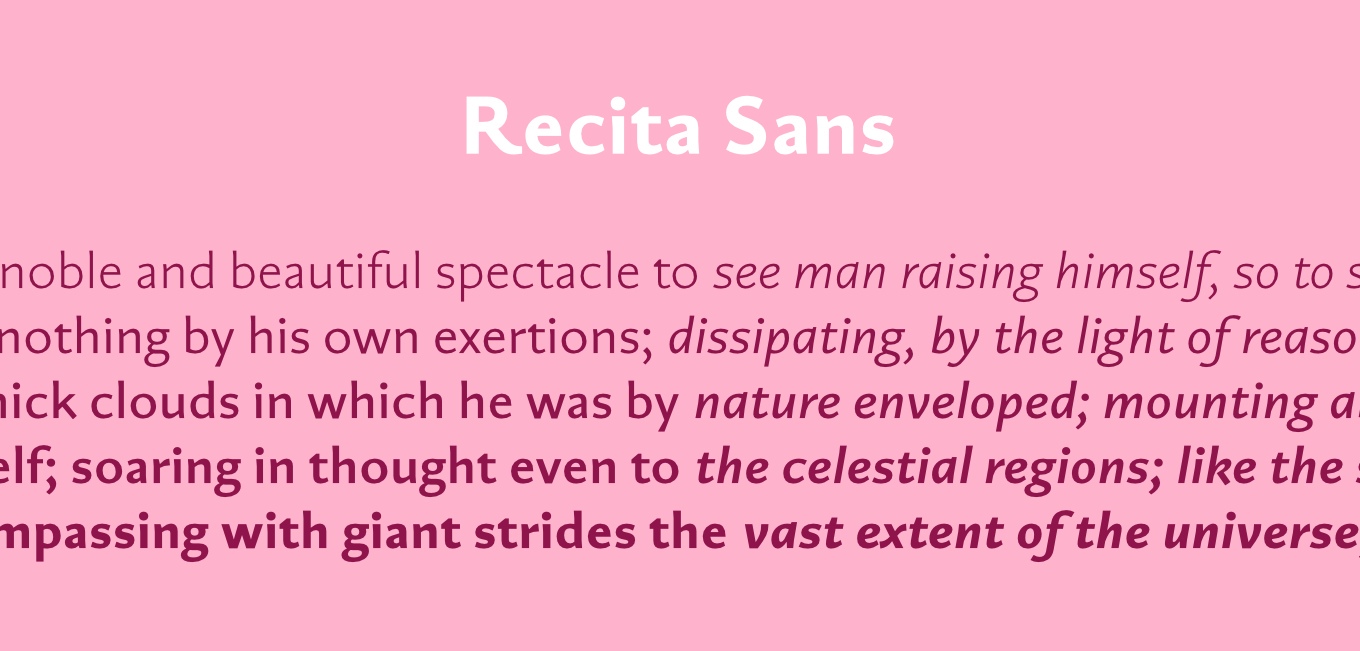
Recita Sans Font
Recita Sans Font is perfect for modern corporate presentations, clean web interfaces, professional documentation, minimalist branding systems, tech startup identity, and contemporary editorial design. Its refined character makes it ideal for financial institutions, healthcare companies, educational platforms, software applications, architectural firms, and any project requiring crisp legibility with sophisticated geometric precision and timeless professionalism.
This font is exciting because it masterfully balances human warmth with technical precision, creating letterforms that feel both approachable and authoritative in professional contexts. The carefully engineered spacing and proportions ensure exceptional performance across all digital platforms while maintaining the subtle personality that distinguishes premium typography from generic alternatives, making every communication feel thoughtfully crafted and professionally executed.
The Recita Sans Font family typically includes Thin, Light, Regular, Medium, Bold, and Black weights with corresponding italics and extensive language support. This comprehensive range provides designers with versatile tools for creating sophisticated information hierarchies and clean visual systems that maintain consistency across complex multi-platform applications and international business communications.
Whether you're developing corporate identity systems, designing user interfaces for mobile applications, or creating annual reports for Fortune 500 companies, Recita Sans Font Free Download delivers the professional reliability and contemporary elegance that modern business demands. Its excellent screen optimization ensures perfect readability across all devices while maintaining the refined aesthetic that communicates competence, trustworthiness, and forward-thinking innovation in today's competitive marketplace with unmatched typographic excellence.